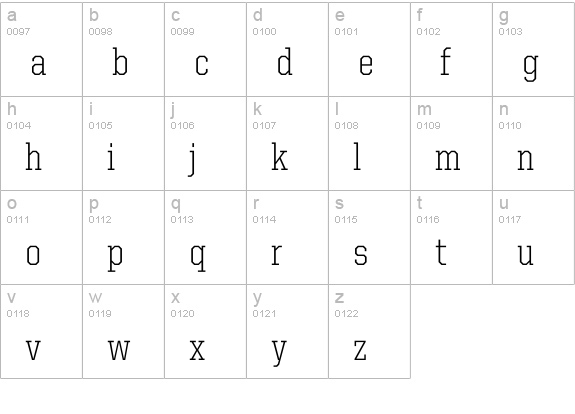
United Serif SemiCond Light Font Details
United Serif SemiCond Light is a refined, elegant variant in the United typeface family \xE2\x80\x94 well suited to elegant body text, refined sub-headings, and luxury branding.
United Serif SemiCond Light is a sleek and sophisticated typeface that exudes elegance and professionalism. With its modern yet timeless design, this font is perfect for a wide range of projects, from branding and advertising to editorial and web design. The unique characteristics of United Serif SemiCond Light make it stand out from other fonts in its category. Its semi-condensed structure allows for more text to be fit into a limited space without compromising legibility, making it ideal for projects that require a lot of information to be displayed in a compact manner. This font features clean and crisp letterforms with subtle serifs that add a touch of sophistication to any design. The light weight of the font gives it a delicate and refined appearance, making it suitable for both headings and body text. One of the best things about United Serif SemiCond Light is that it is freely available to download at FontsMarket.com. This means that you can easily access and use this font without any cost. Whether you are a professional designer or a hobbyist, having access to high-quality fonts like United Serif SemiCond Light can greatly enhance the visual appeal of your projects. So, if you are looking for a versatile and stylish font that is both visually appealing and free to use, look no further than United Serif SemiCond Light. Download it today from FontsMarket.com and elevate your designs to new heights of elegance and professionalism.